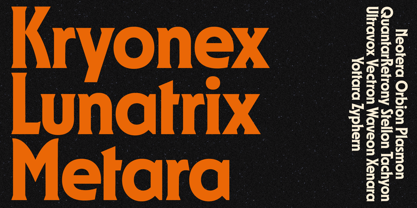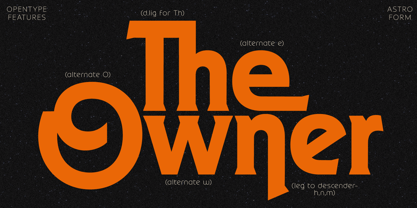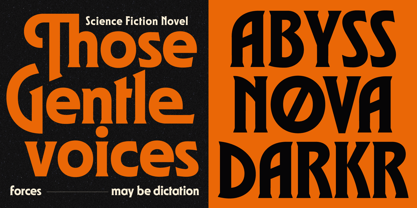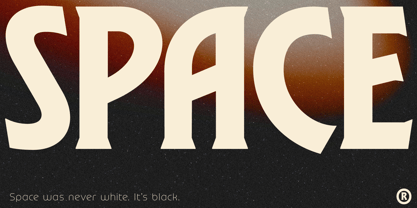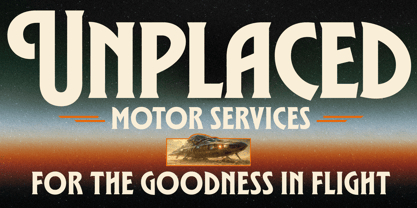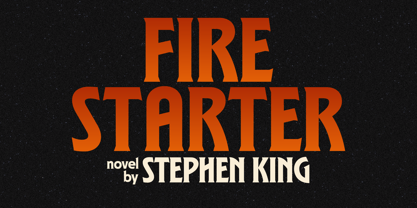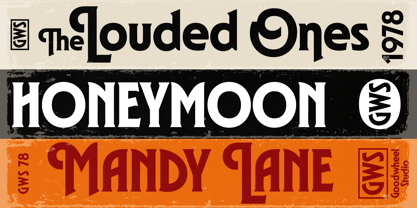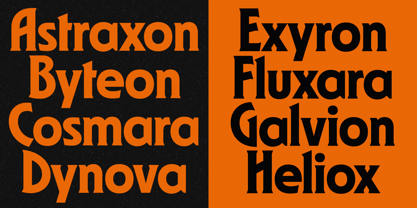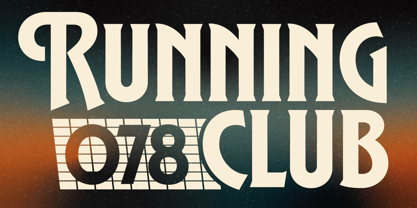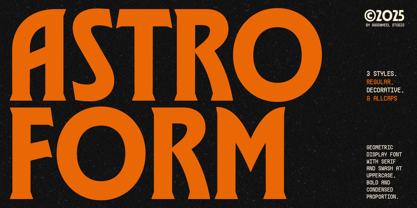
GW Astroform
by Goodwheel Studio
The GW Astroform Font Family was designed by Ilham Herry, Akbar Gumelar and published by Goodwheel Studio. GW Astroform contains 3 styles and family package options. More about this family
A bold geometric display font featuring sharp serifs and expressive swashes on uppercase letters. Designed with a condensed, confident proportion that commands attention. Available in three styles Regular, Decorative, and Allcaps giving you the flexibility to go clean, expressive, or loud. Perfect for headlines, logos, posters, album covers, packaging, and bold branding moments where personality matters more than playing it safe
Designers: Ilham Herry, Akbar Gumelar
Foundry: Goodwheel Studio